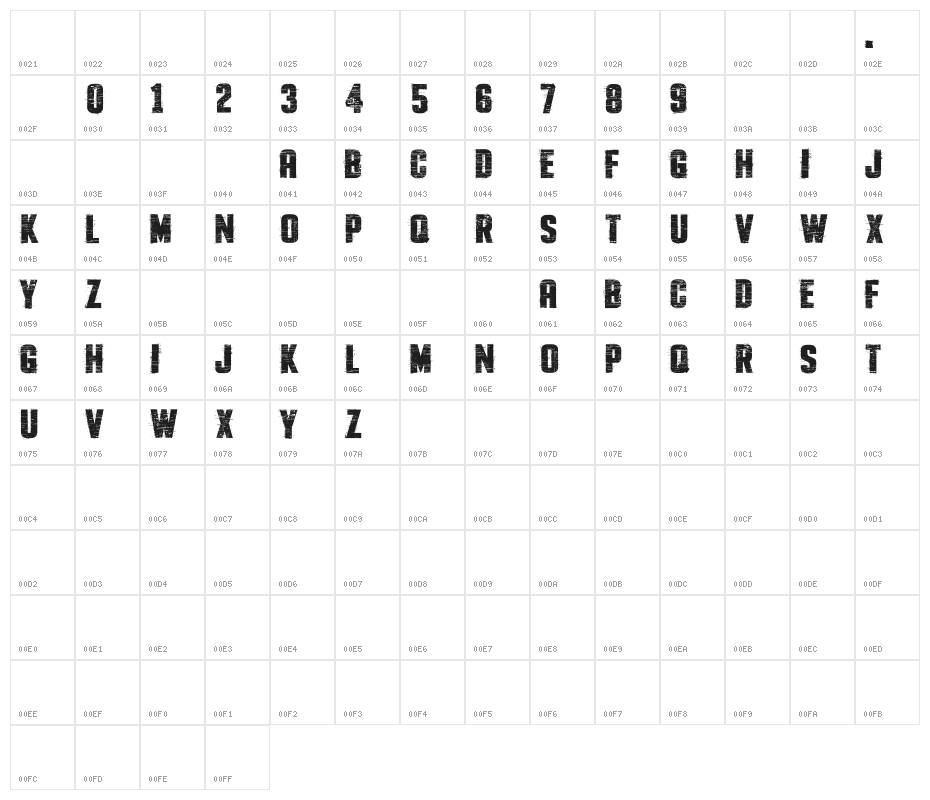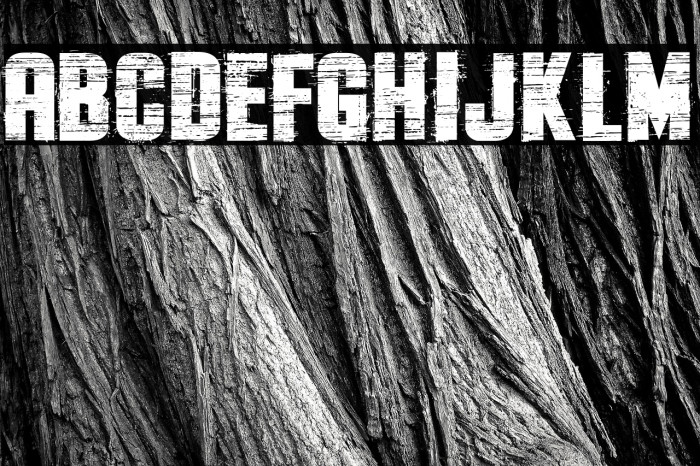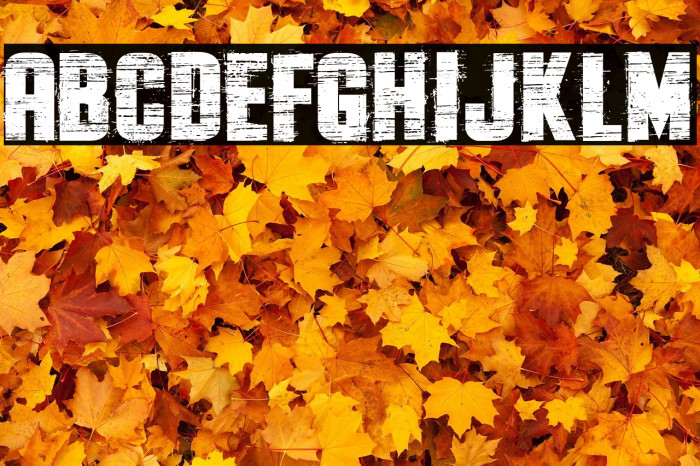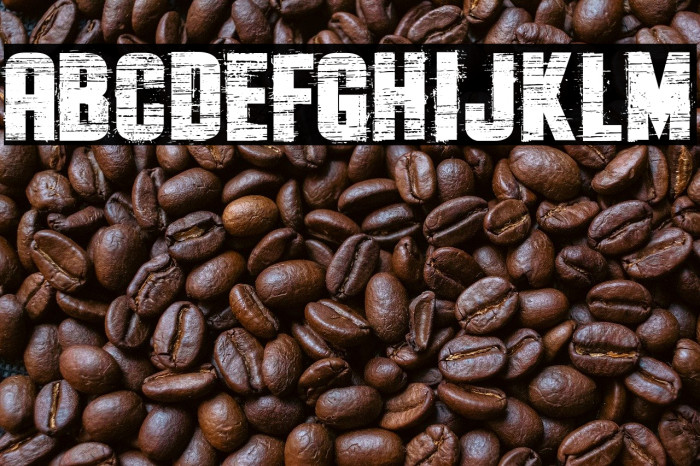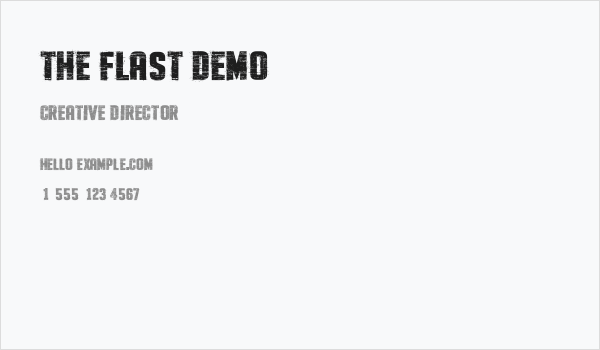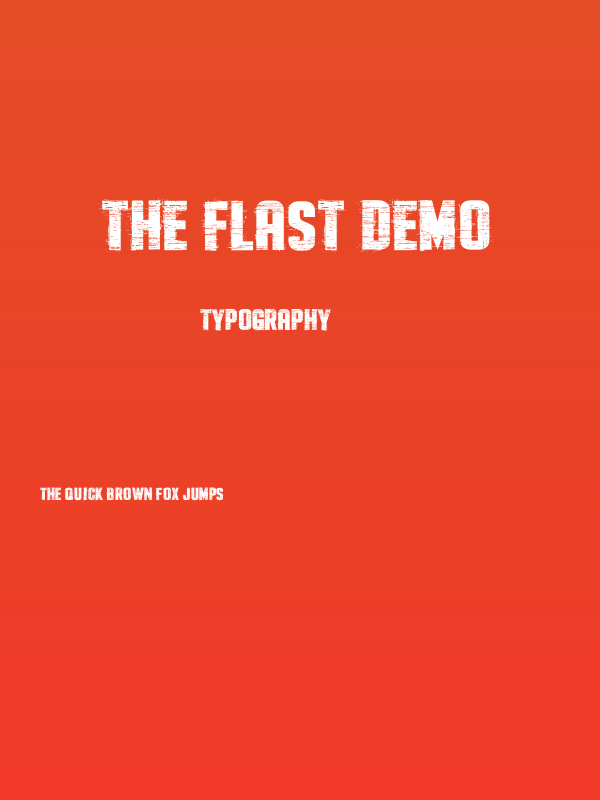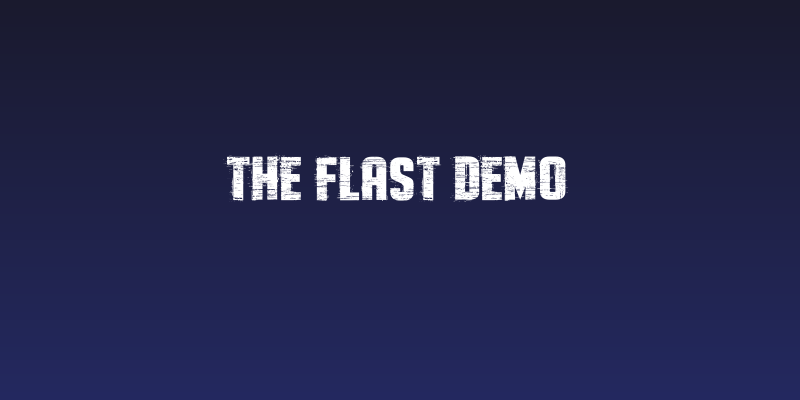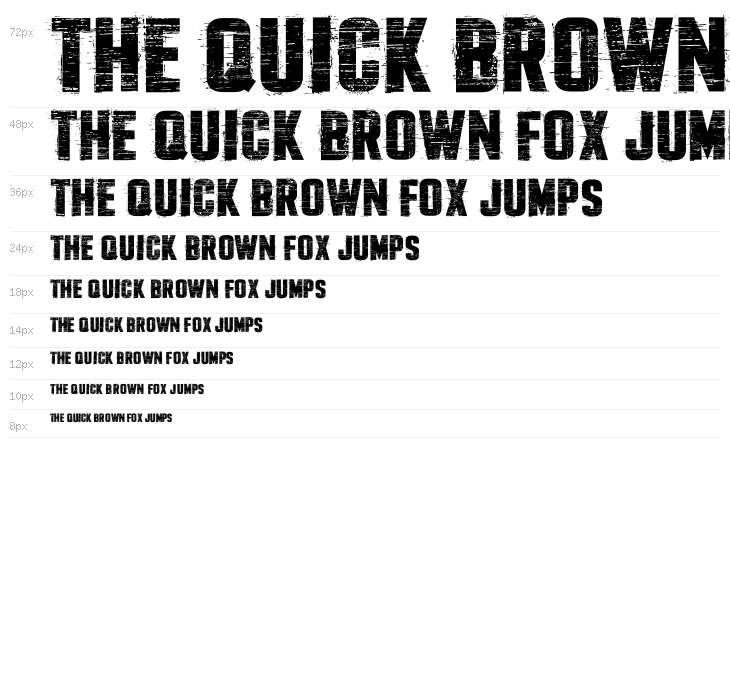
The Flast Demo Font
The Flast Demo Description
This font features a bold, distressed style with a textured, grunge appearance. Each character is heavily weathered, giving it a rugged and worn look, reminiscent of vintage posters or industrial design. The uppercase letters are prominent and impactful, while the numbers maintain the same distressed aesthetic. The font's rough edges and uneven texture add a sense of authenticity and character, making it ideal for projects that require a bold statement or a touch of nostalgia. Its unique style captures attention and conveys a sense of strength and resilience.